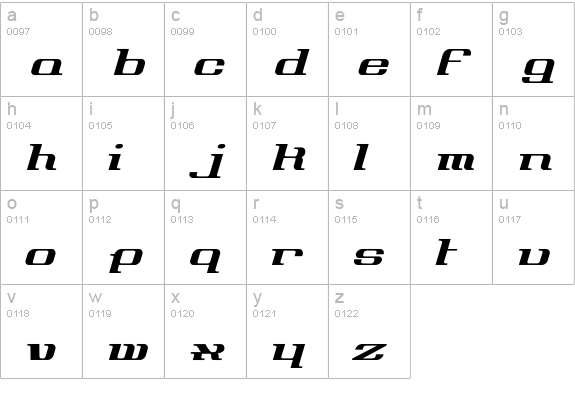
Axiom Font Details
Introducing Axiom font, a sleek and modern typeface perfect for a wide range of design projects. With its clean lines and sharp edges, Axiom exudes a sense of sophistication and elegance. This versatile font is ideal for creating eye-catching headlines, branding materials, and more. What sets Axiom font apart is that it is available for free download at FontsMarket.com. This means you can access this high-quality typeface without any cost, making it a valuable addition to your font collection. Whether you're a graphic designer, a marketer, or a creative enthusiast, Axiom font offers endless possibilities for your projects. Download Axiom font today and elevate your designs with its timeless appeal and modern aesthetic. Let your creativity shine with this exceptional font that is both stylish and freely accessible for all your design needs.